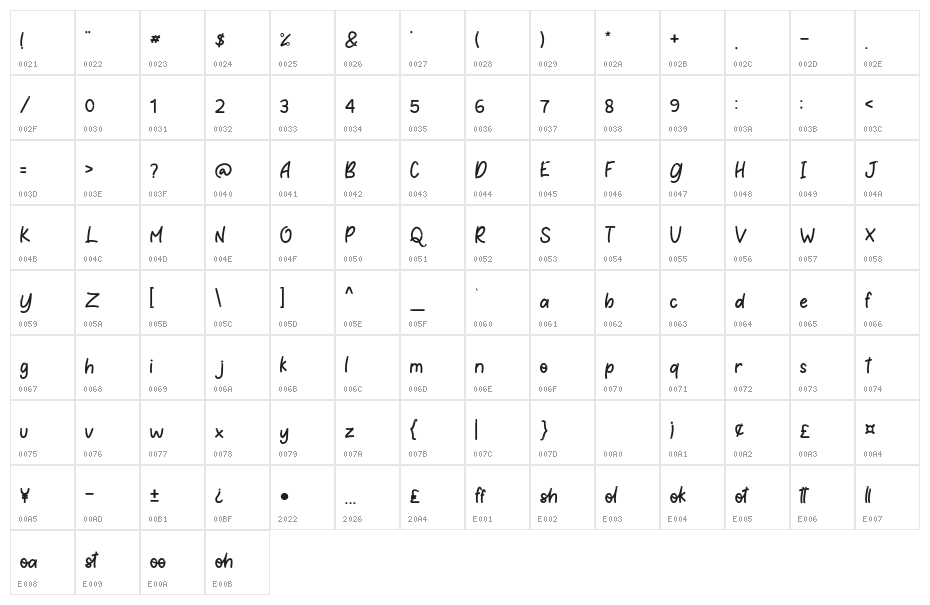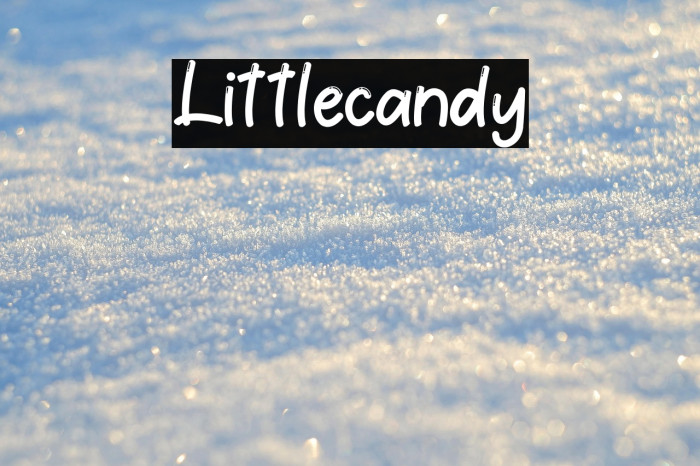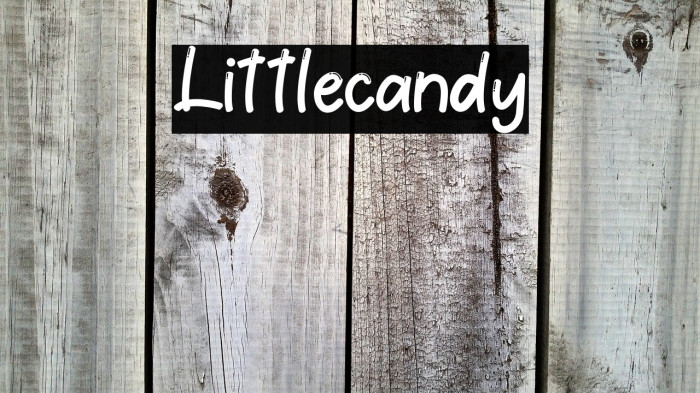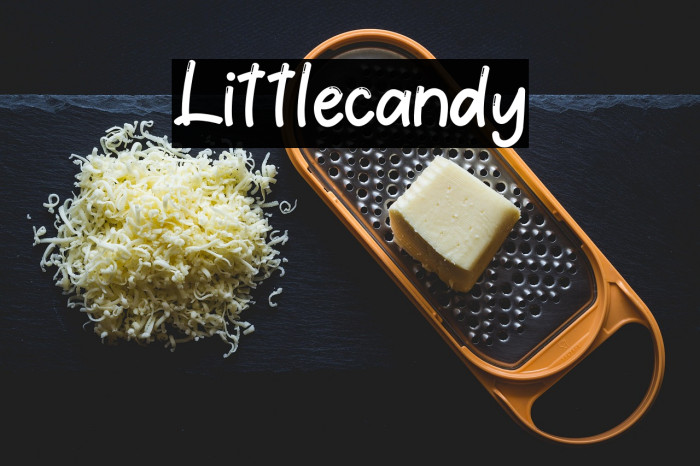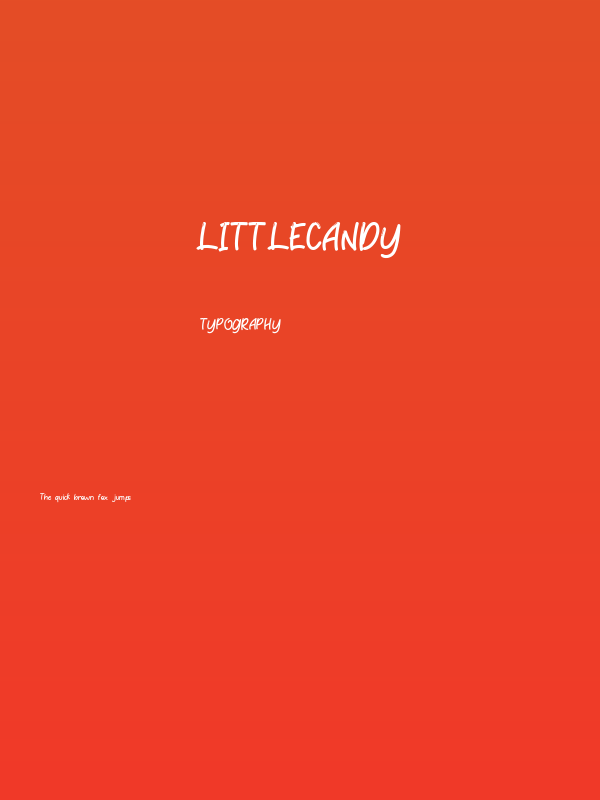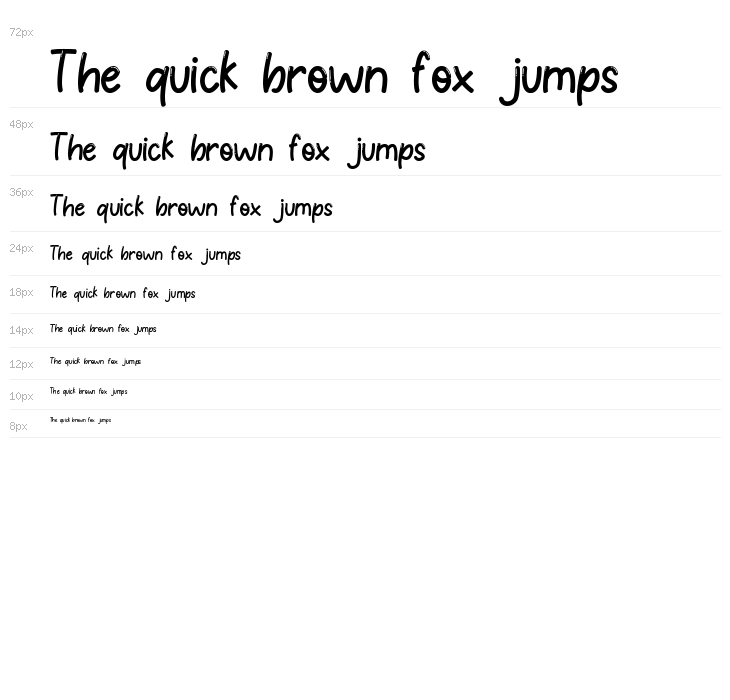
Littlecandy Font
Littlecandy Description
This playful and energetic font features a handwritten style with a casual and friendly appearance. The letters are slightly slanted, giving a dynamic and lively feel. The strokes are uneven, mimicking the natural flow of handwriting, which adds a personal touch to the text. The font maintains a consistent weight throughout, with rounded edges that soften the overall look. It includes a full set of uppercase and lowercase letters, numbers, and a variety of special characters, making it versatile for different uses. The spacing between characters is normal, ensuring readability while maintaining its whimsical charm.
| Use Case | Headlines, Logos, Social media graphics |
| Proposed Projects | Ideal for greeting cards, children's books, playful branding, and social media graphics. |